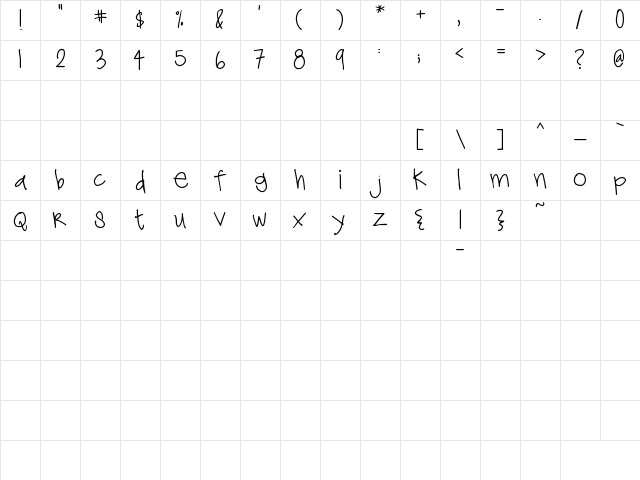
2peas unknown Regular Free Font
2peas unknown Regular
Foundry: Two Peas in a Bucket
Designer: Amy Grendell
Design Context for 2peas unknown
2peas unknown is a composed and adaptable typeface that performs quietly and consistently across a wide range of design contexts.